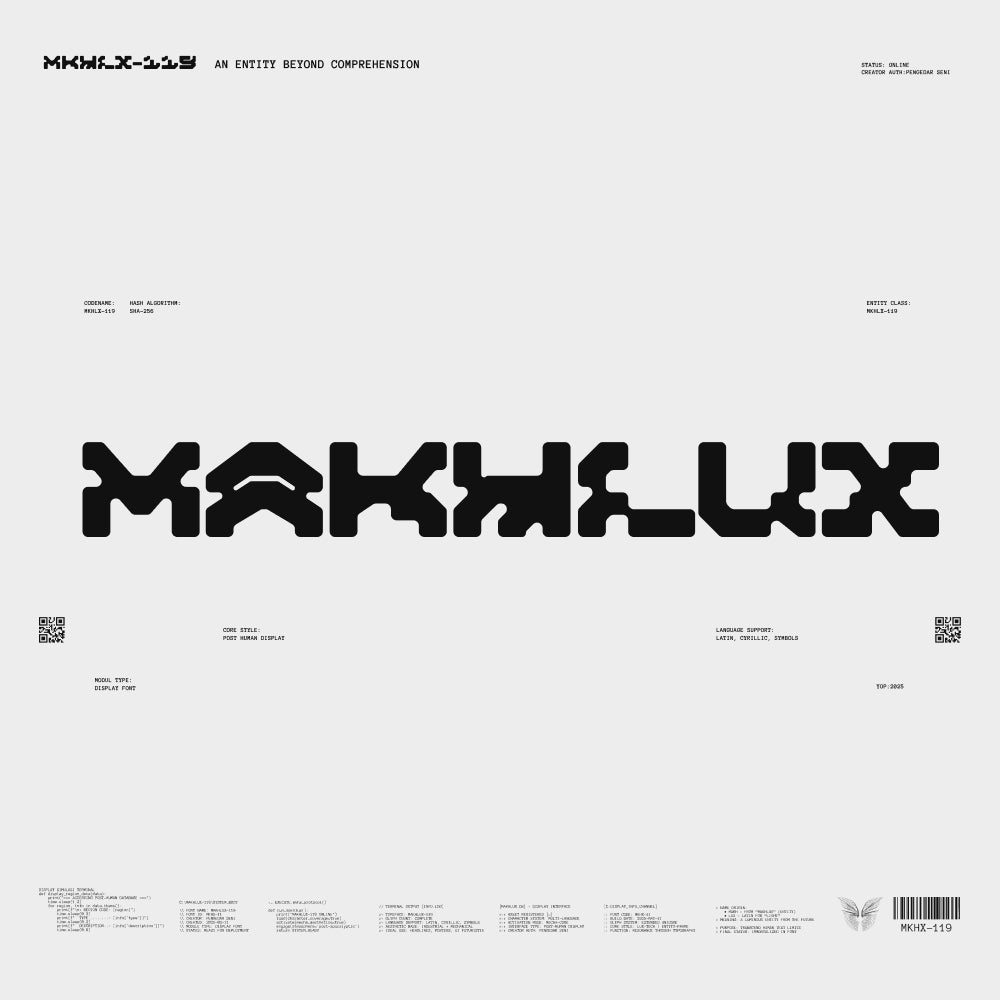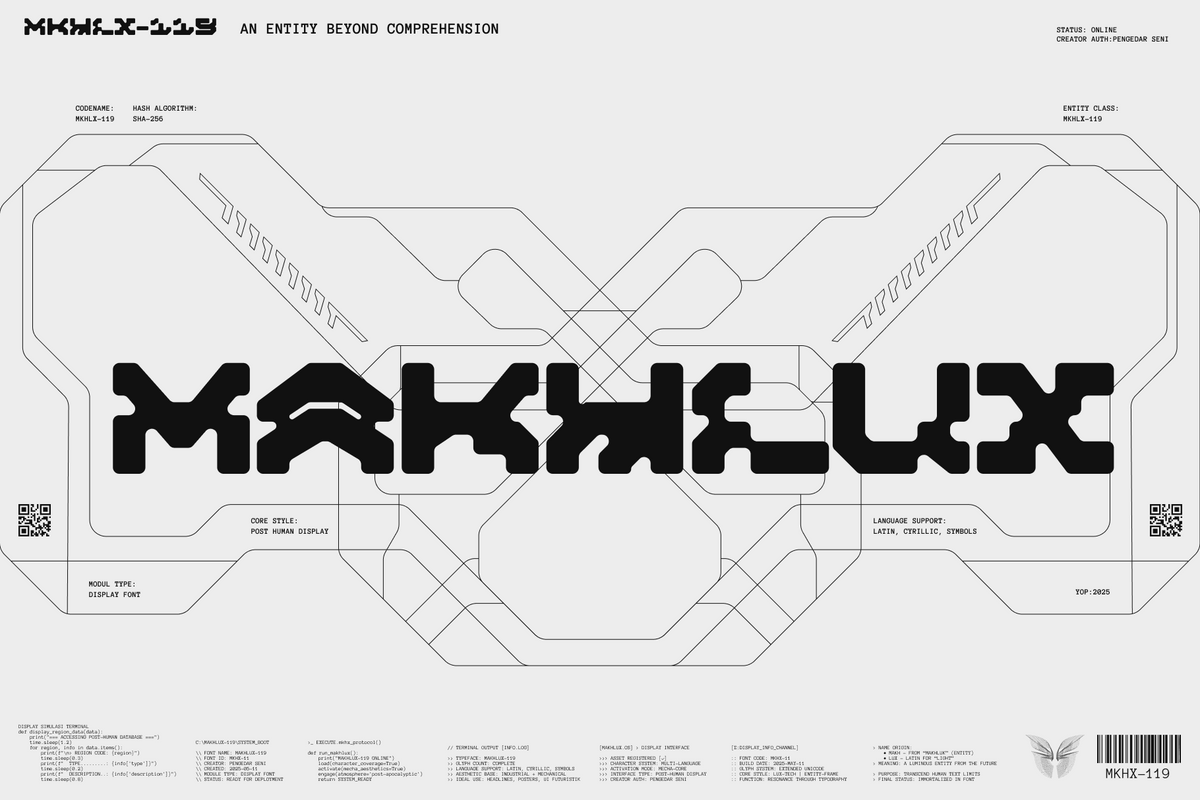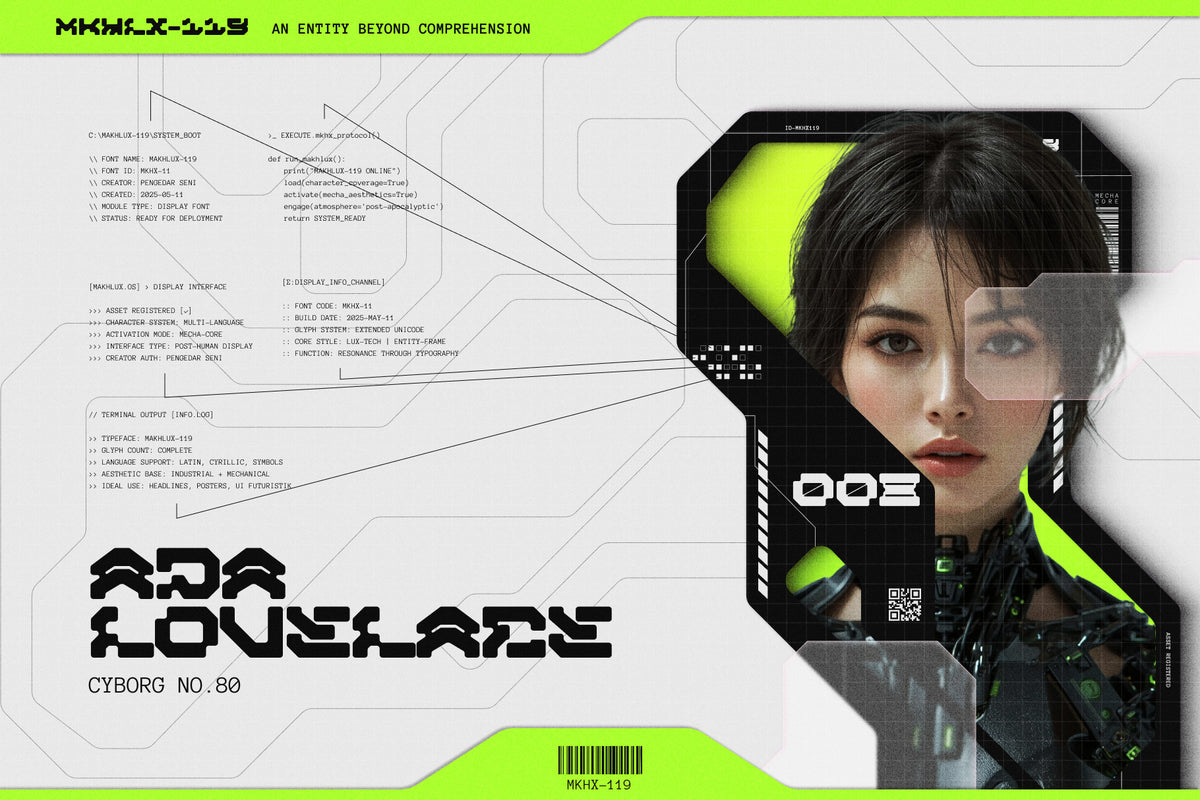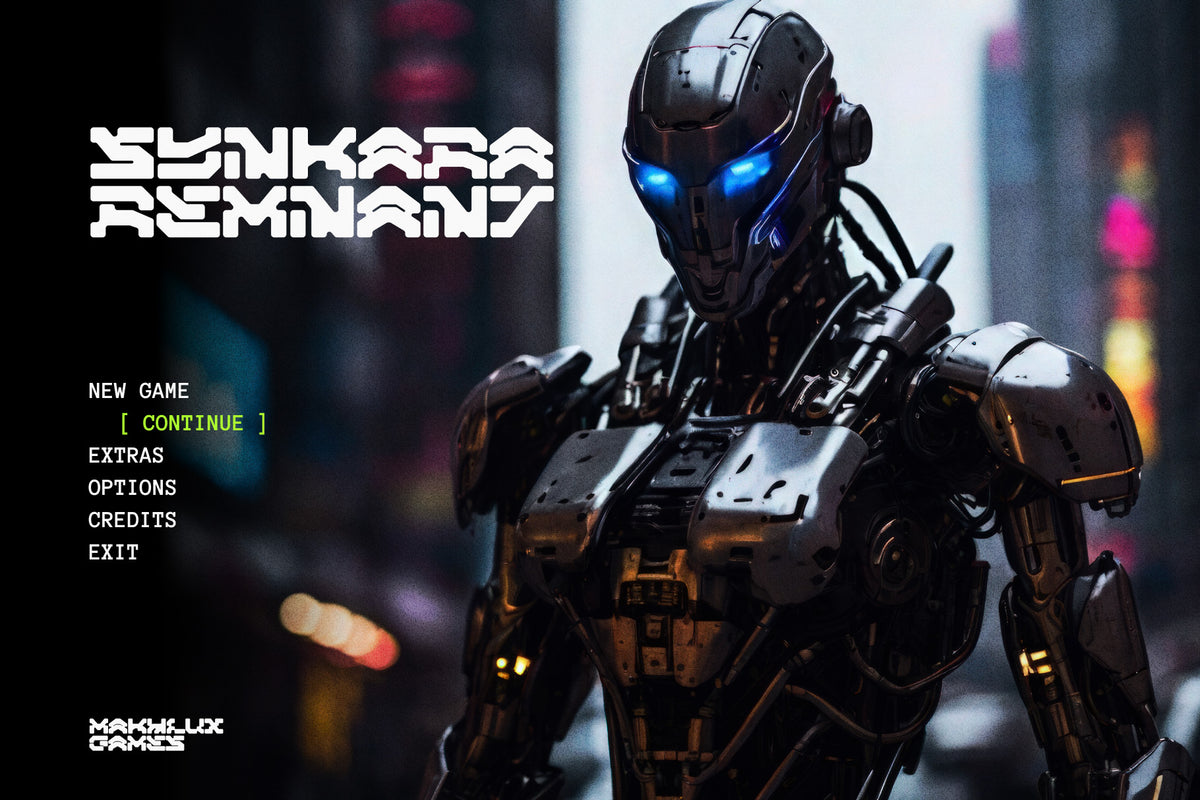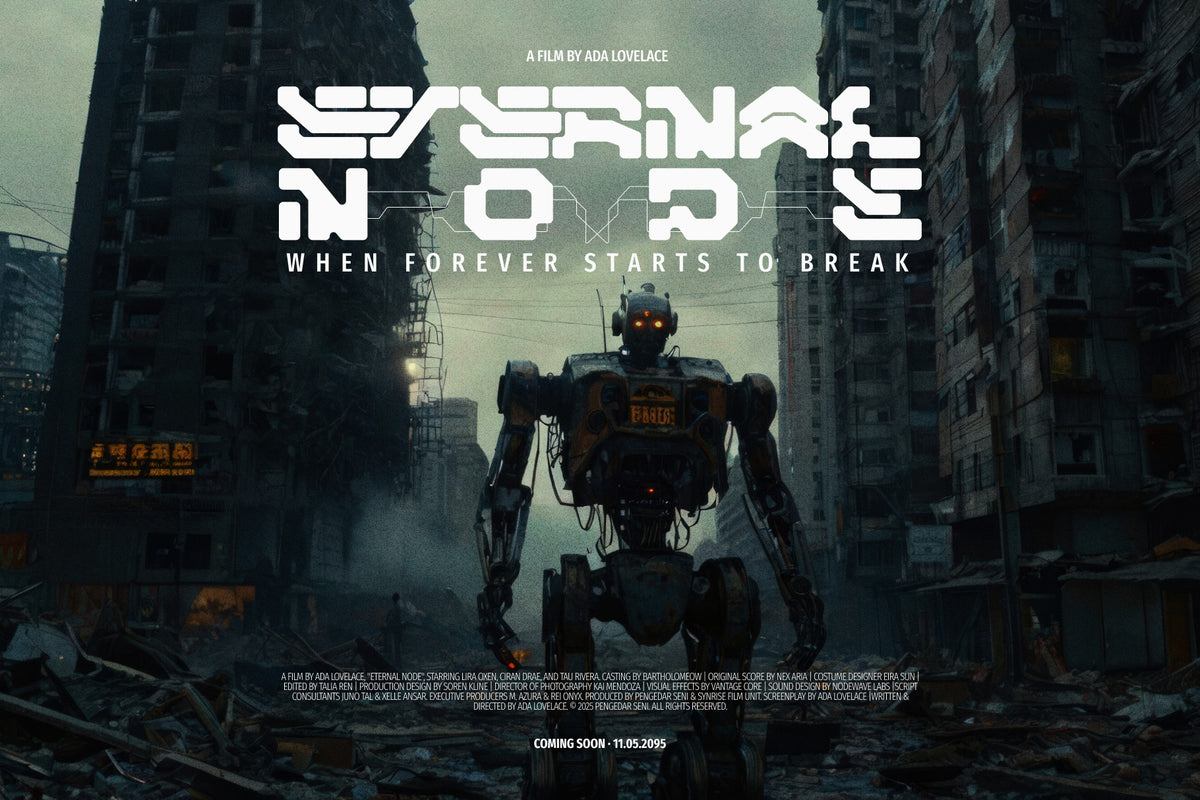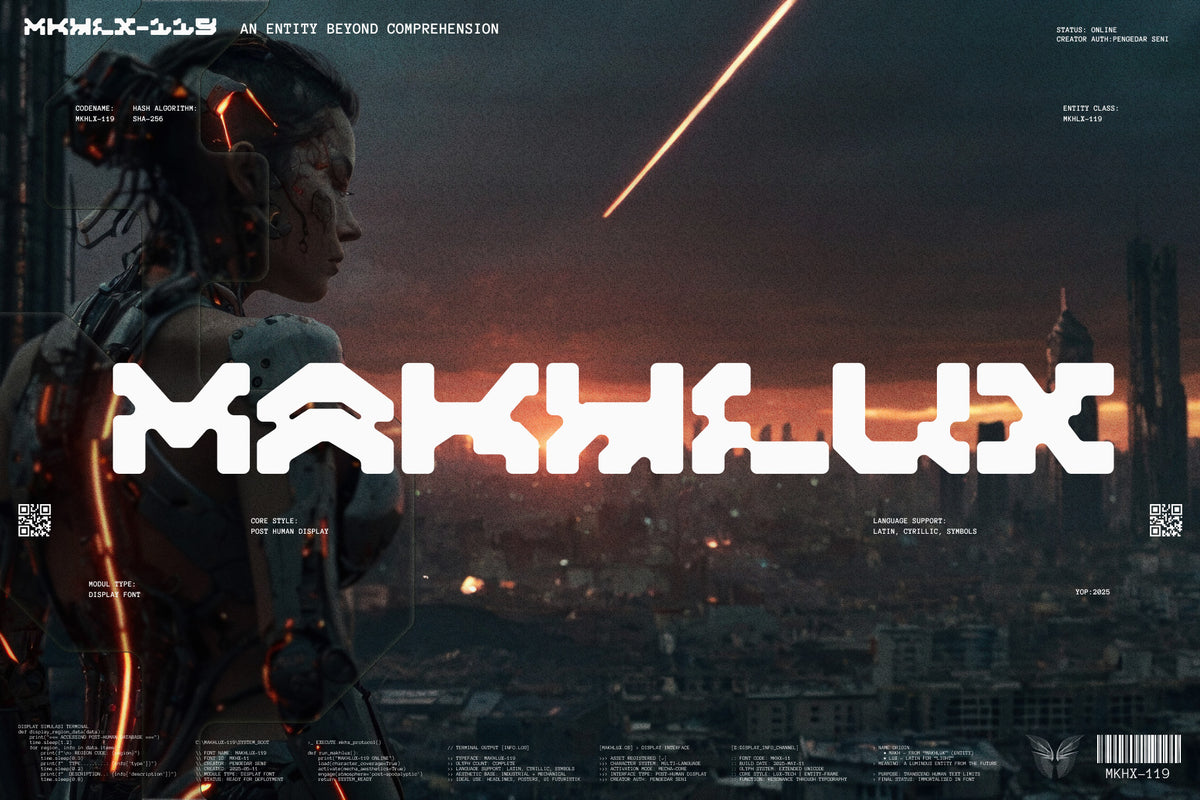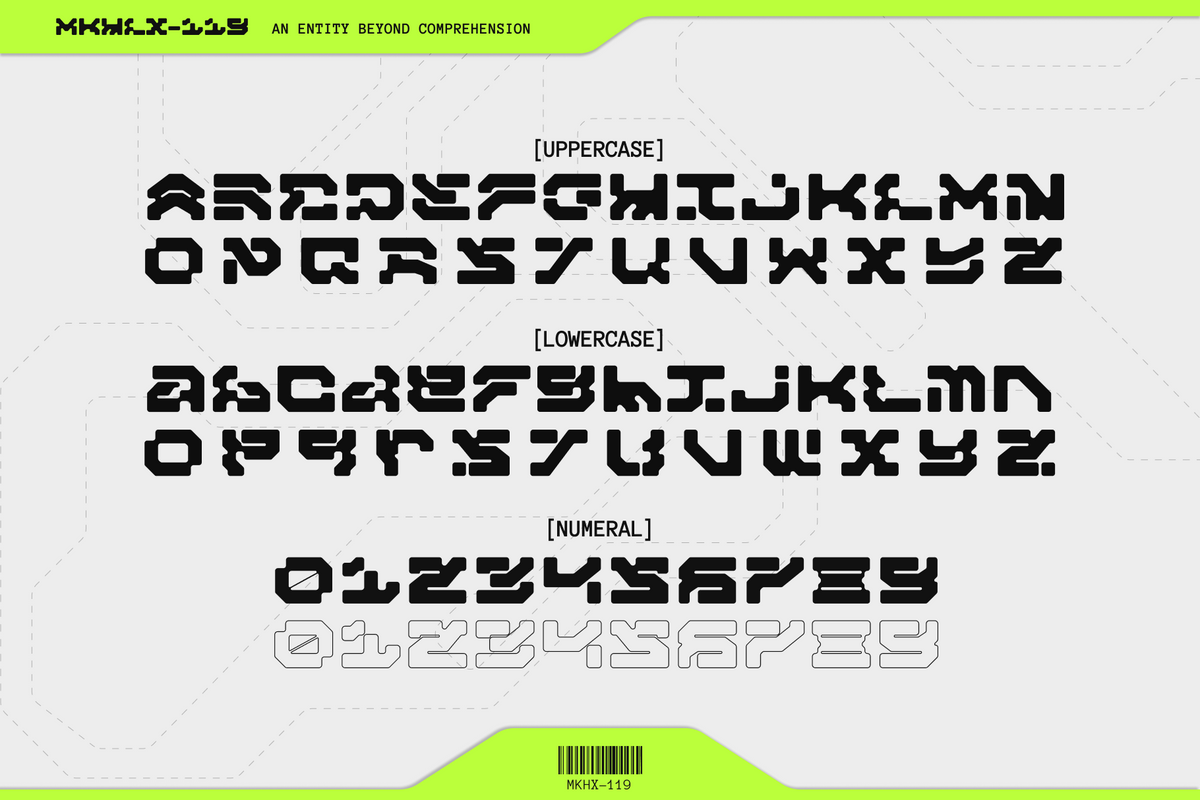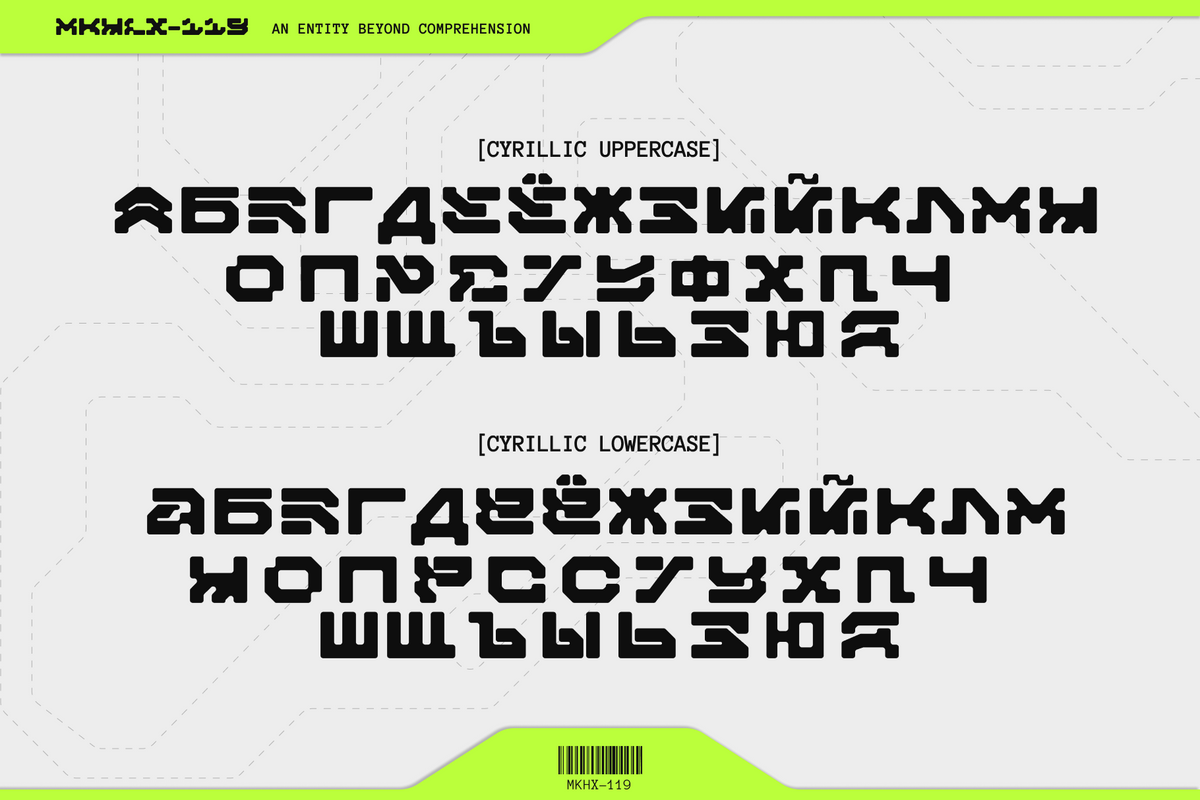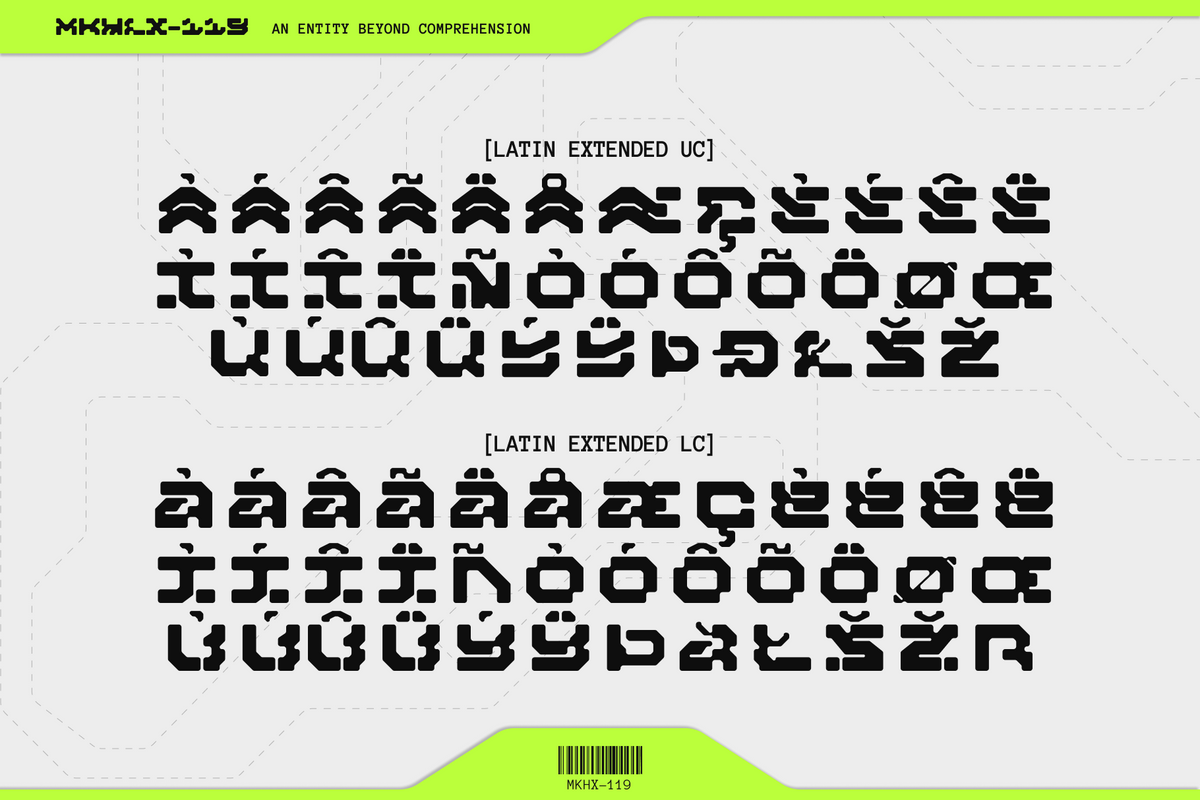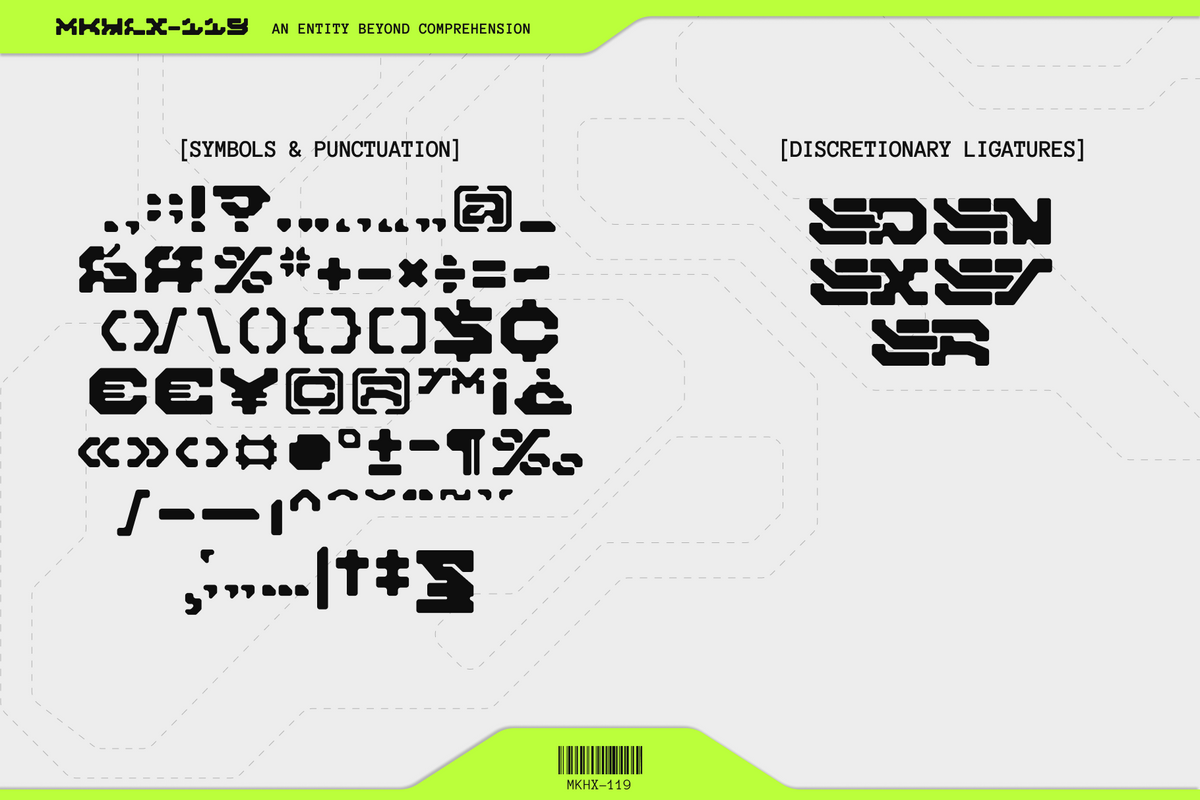
Makhlux 119 - Futuristic Typeface
MAKHLUX ā Cyber Mecha Display Typeface
A creature from the future. A light from digital ruins.
MAKHLUX is a cyber-futuristic display typeface fusing mecha aesthetics, a post-apocalyptic atmosphere, and evolved machine language. Derived from makhluk (Indonesian for creature or entity) and lux (Latin for light), it is a synthetic lifeform born from the debris of the old world. With sharp, angular, and geometric letterforms, MAKHLUX is ideal for cyberpunk themes, sci-fi visuals, tech-noir branding, and dystopian game aesthetics.
The Meaning Behind MAKHLUX
𧬠Makh (Makhluk, Indonesian) ā A conscious living entity bridging reality and the digital realm.
š” Lux (Latin) ā Light; a symbol of energy, hope, and existence in digital darkness.
š¤ MAKHLUX ā A digital creature of light born within ruins and algorithms.
Why Choose MAKHLUX?
Cyberpunk Entity: Delivers a futuristic, glowing darkness for dystopian worlds.
Signature Letters (A, H, M, L): Bold, standout shapes designed to anchor display compositions.
Mecha & Dystopian Style: Perfect for sci-fi posters, synthwave album covers, anime intros, or game UI.
Typeface as Lifeform: A living design that speaks through form and brings language to life.
Let your words evolve into digital creatures of light.
Makhlux 119 is a display typeface featuring sharp, angular, and geometric letterforms with signature designs for the letters A, H, M, and L. It combines a cyber-mecha aesthetic with sans-serif structure, suited for futuristic and cyberpunk-themed typography.